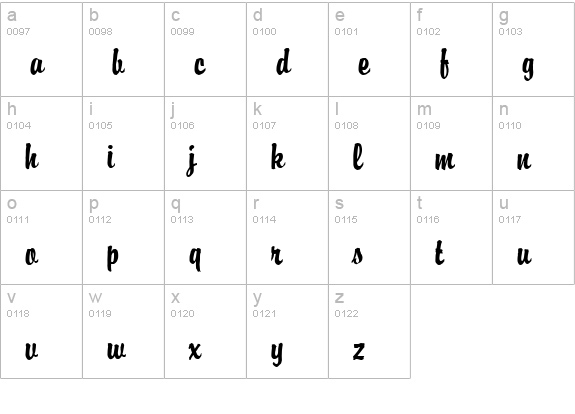
BrodyD Font Details
BrodyD font is a striking and modern typeface that exudes sophistication and elegance. With its clean lines and stylish design, BrodyD is sure to make a statement in any project. Whether you're creating a logo, designing a website, or crafting a brochure, this versatile font will add a touch of class to your work. Best of all, BrodyD font is available for free download at FontsMarket.com. That's right - you can access this high-quality font without spending a dime. Don't miss out on the opportunity to enhance your designs with BrodyD font today!